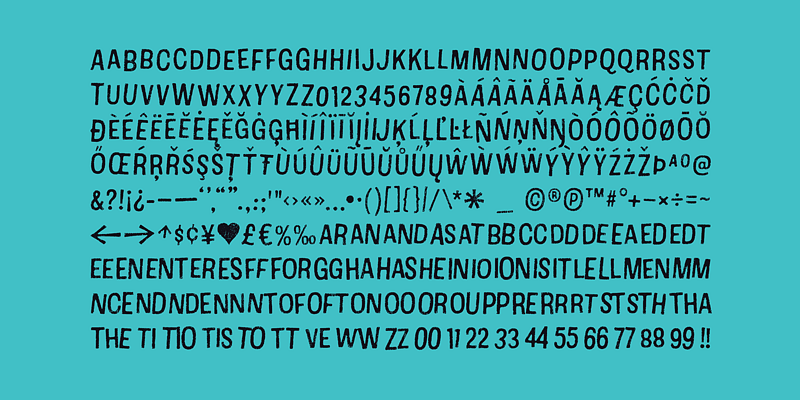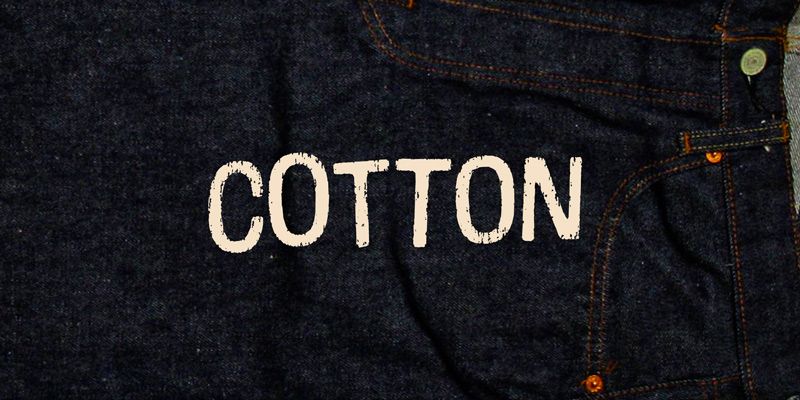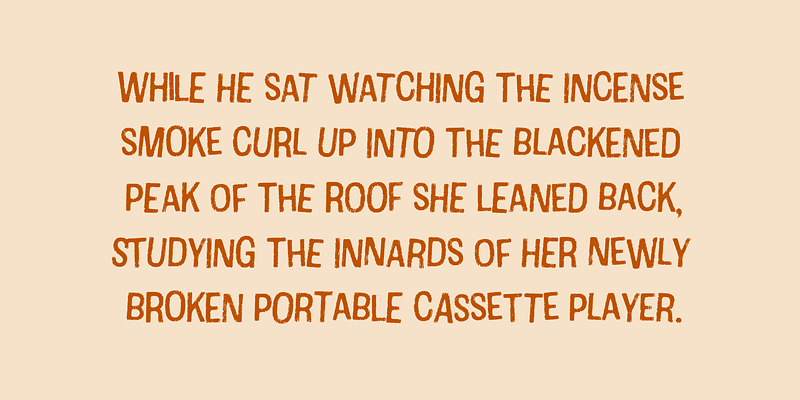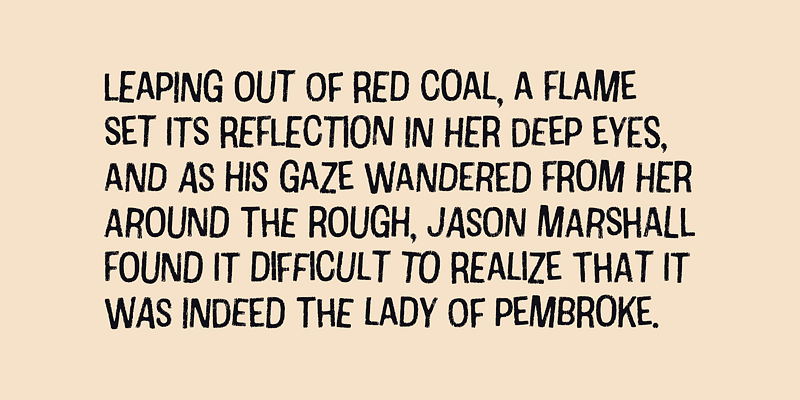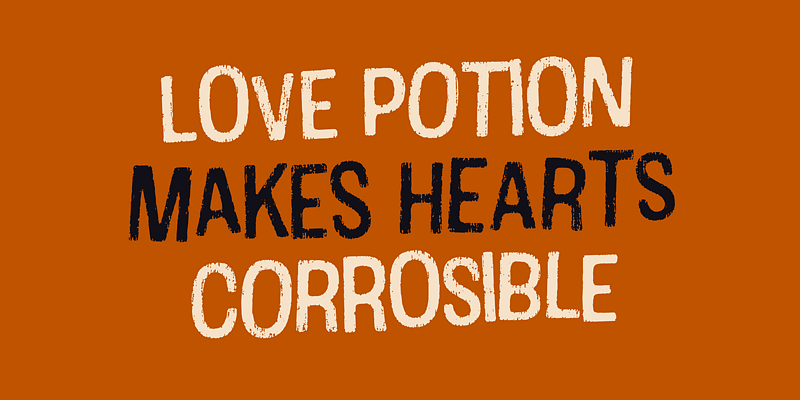
Cotton looks like a screen print that has been worn thin on a favourite shirt. Its narrow all-caps construction stays direct while flecks of missing ink and softened edges provide the history. The texture is especially apt for heritage sports merchandise: team names, championship years, cities, and short slogans on throwback tees, sweatshirts, hangtags, and retail graphics. It also lends music reissues, reunion tours, and archival event posters the character of old concert merchandise. Cotton is strongest when the weathering has a material reason to be there. The letters belong on fabric, merchandise, or a printed object with a believable past.